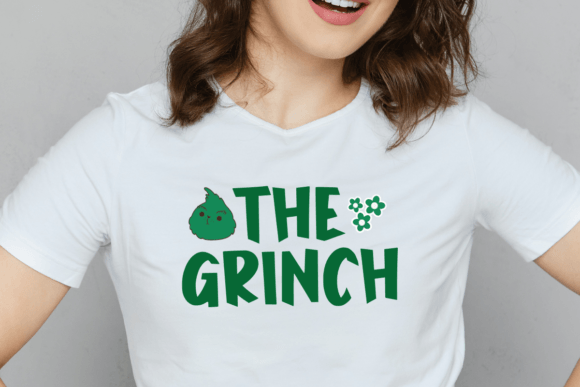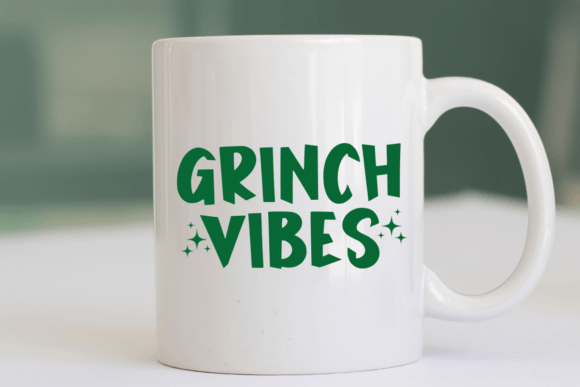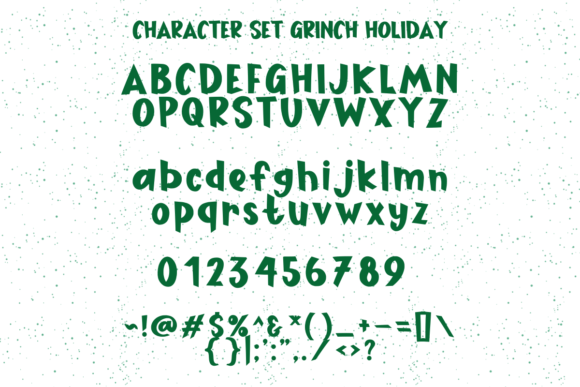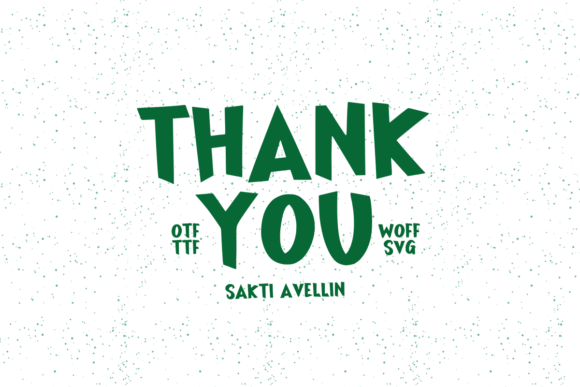
Grinch Holiday Font
Grinch Holiday is a cute and quirky display font. It will add an incredibly joyful touch to your designs. Add this beautiful display font to each of your creative ideas and notice how it makes them stand out!